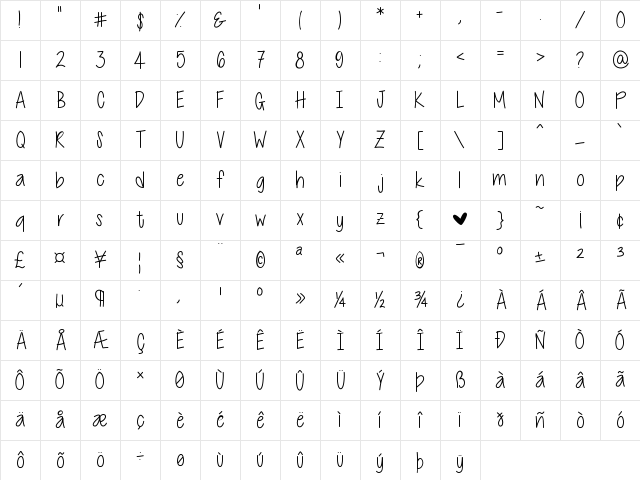
CutiePatootie Medium Free Font
CutiePatootie Medium
Designer: Vanessa Bays
Complete CutiePatootie Medium glyph index. Displaying only characters natively supported by CutiePatootie Medium font.
Design Context for CutiePatootie
CutiePatootie is a composed and adaptable typeface that performs quietly and consistently across a wide range of design contexts.